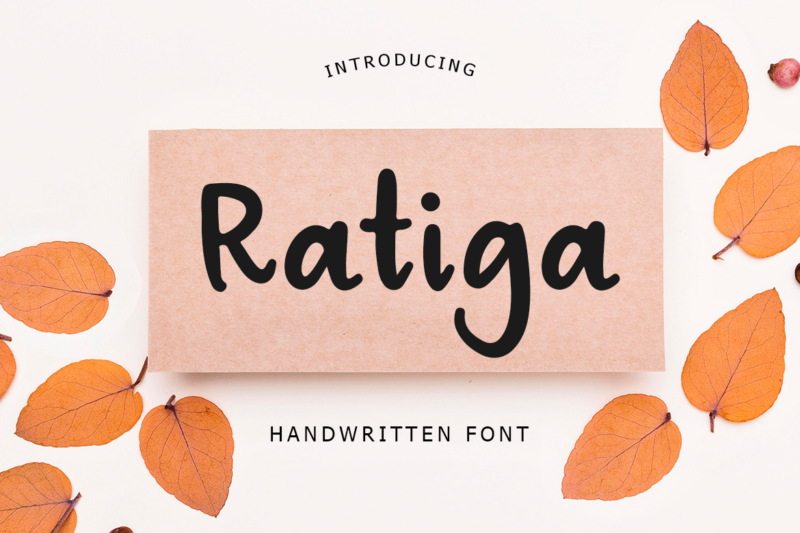
Ratiga Handwritten Font
Ratiga is is a simple and neat handwritten font. Its versatility makes it a go-to font, no matter the occasion. Fall in love with it and bring your projects to the highest levels!